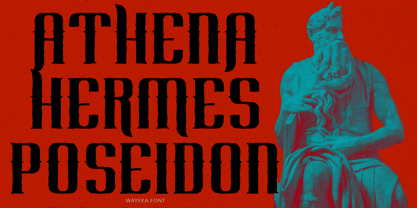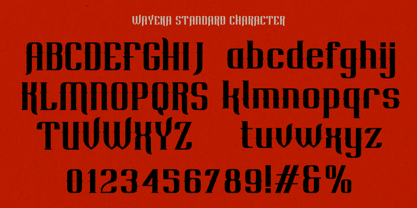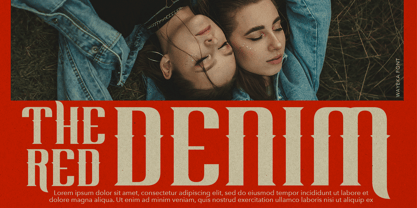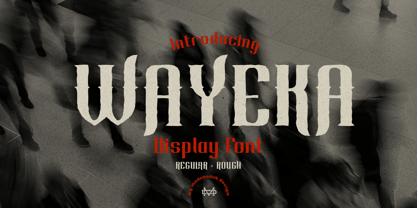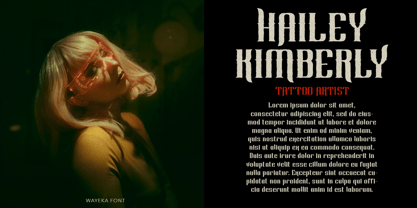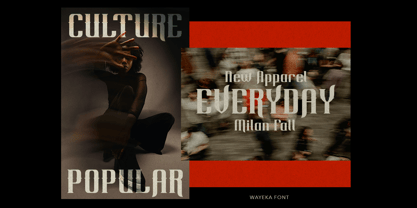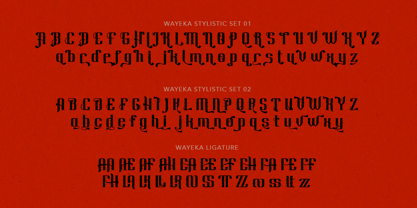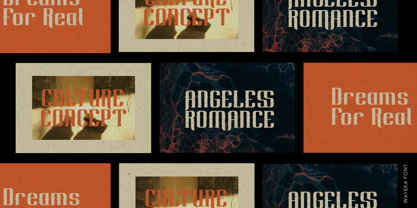
Wayeka
by madeDeduk
Really excited to introduce Wayeka display font, made with a stylish impression and supported by alternative with references to various letters that I combine. There's come with 2 style font and suitable to create any branding, product packaging, invitation, quotes, t-shirt, label, poster, logo etc.